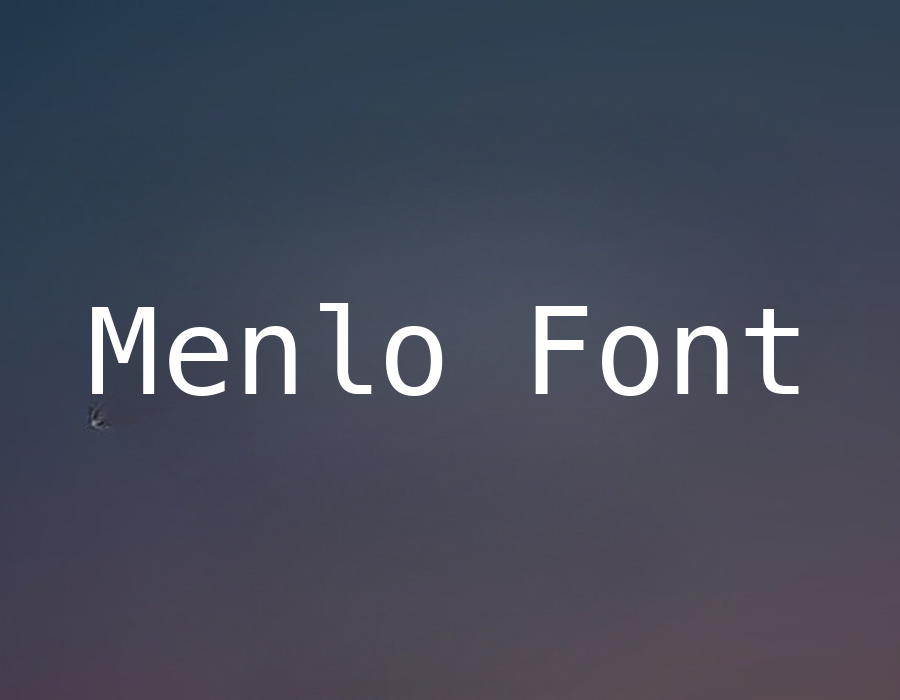
About Menlo Font
Menlo is a monospaced sans-serif typeface designed by Apple for use in programming and terminal environments. It is based on the open-source Bitstream Vera Sans Mono and was introduced with Mac OS X Snow Leopard (10.6) in 2009 as the new default font for Terminal, Xcode, and other developer tools. Its design prioritizes maximum legibility at small pixel sizes on screen, featuring a large x-height, clear distinctions between similar characters (like 0/O, 1/l/I), and generous spacing. This functional, no-nonsense approach makes it a reliable and widely used font for coding, scripting, and any application where the accurate, unambiguous display of characters is essential.